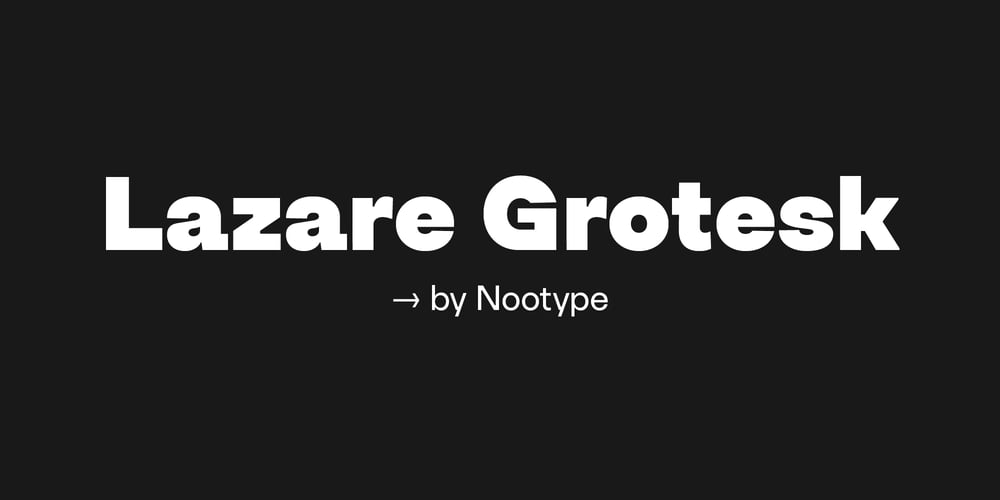
Lazare Grotesk Font Family was designed by Nico Inosanto and published by Nootype. Lazare Grotesk contains 21 styles and family package options. A dynamic and strong new Grotesk, Lazare Grotesk is a family of 21 styles. The family comprises seven weight, from UltraThin to Black, with not only italic but with backslanted too, which allows to make fun and cool layout. In the black weight the font is particularly contrasted.This family contains many OpenType features, such as Alternates, Proportional Figure, Tabular Figures, Old Styles Figures, Numerators, Superscript, Denominators, Scientific Inferiors, Subscript, Ordinals and Fractions, which make that typeface useful in various projects. The fonts have an extended characters set to support Central, Eastern and Western European languages.Lazare Grotesk supports Latin and Cyrillic, all these languages are covered:Latin language support:Afar, Afrikaans, Albanian, Asturian, Azeri, Basque, Bosnian, Breton, Bulgarian, Catalan, Cornish, Corsican, Croatian, Czech, Danish, Dutch, English, Esperanto, Estonian, Faroese, Filipino, Finnish, Flemish, French, Frisian, Friulian, Gaelic, Galician, German, Greenlandic, Hungarian, Icelandic, Indonesian, Irish, Italian, Kurdish, Latin, Latvian, Lithuanian, Luxembourgish, Malagasy, Malay, Maltese, Maori, Moldavian, Norwegian, Occitan, Polish, Portuguese, Provençal, Romanian, Romansch, Saami, Samoan, Scots, Scottish, Serbian, Slovak, Slovenian, Spanish, Swahili, Swedish, Tagalog, Turkish, Walloon, Welsh, WolofCyrillic language support:Adyghe, Avar, Belarusian, Bulgarian, Buryat, Chechen, Erzya, Ingush, Kabardian, Kalmyk, Karachay-Balkar, Karakalpak, Kazakh, Komi, Kyrgyz, Lak, Macedonian, Moldovan, Mongol, Permyak, Russian, Rusyn, Serbian, Tatar, Tofa, Tuvan, Ukrainian, Uzbek